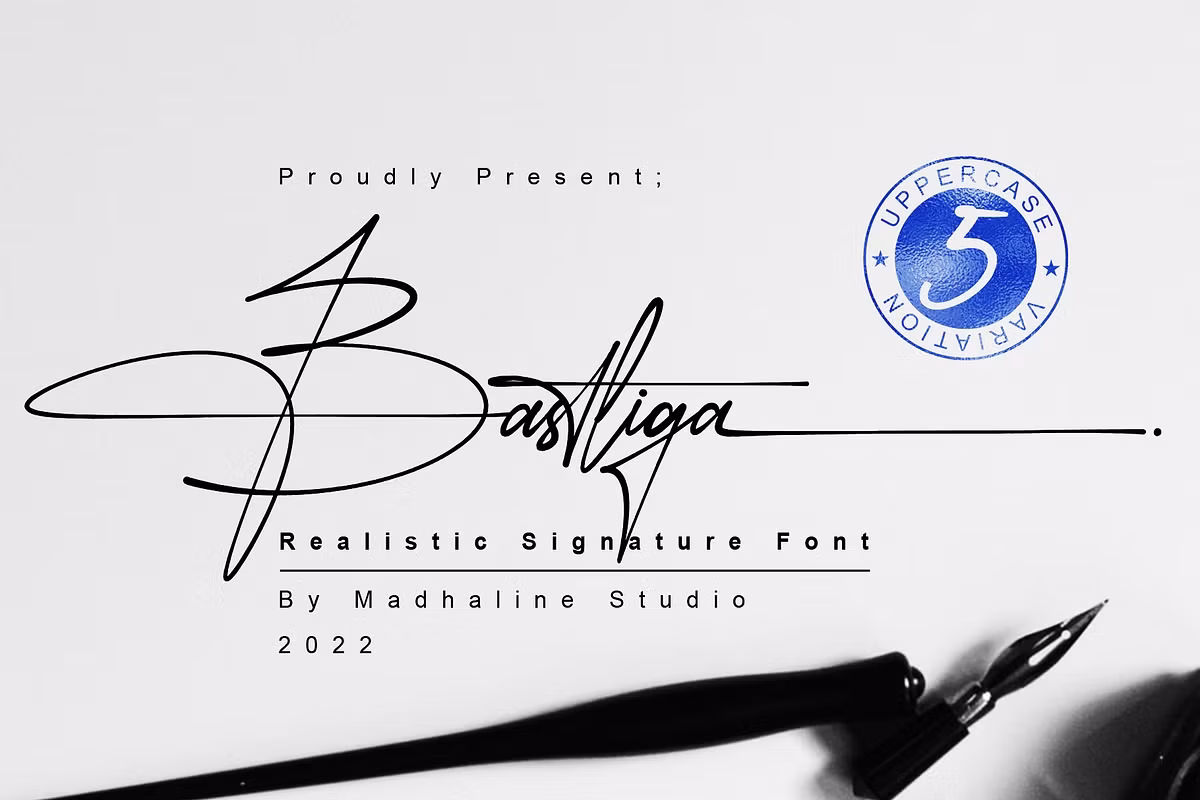
Bastliga 5 Realistic Signature Vol.1 Free Download is a meticulously handcrafted signature font that exudes authenticity and elegance. Designed to replicate the nuances of real handwriting, this font is perfect for photography watermarks, social media posts, advertisements, logos, branding, invitations, product designs, labels, stationery, wedding designs, product packaging, and special events that require a personalized touch.
Bastliga One, Two, Three, Four, Five: A collection of handcrafted brush fonts featuring a complete set of A-Z characters, multilingual support, punctuation, ligatures, and alternates.
Bastliga Tail: A bonus set of 52 uppercase and lowercase letters with decorative tails, allowing you to add unique flourishes to your designs.
Experience the refined craftsmanship of Bastliga 5 Realistic Signature Vol.1 Free Download in your personal projects. Its natural flow and sophisticated style will elevate your designs, providing an authentic signature feel that resonates with elegance and professionalism.